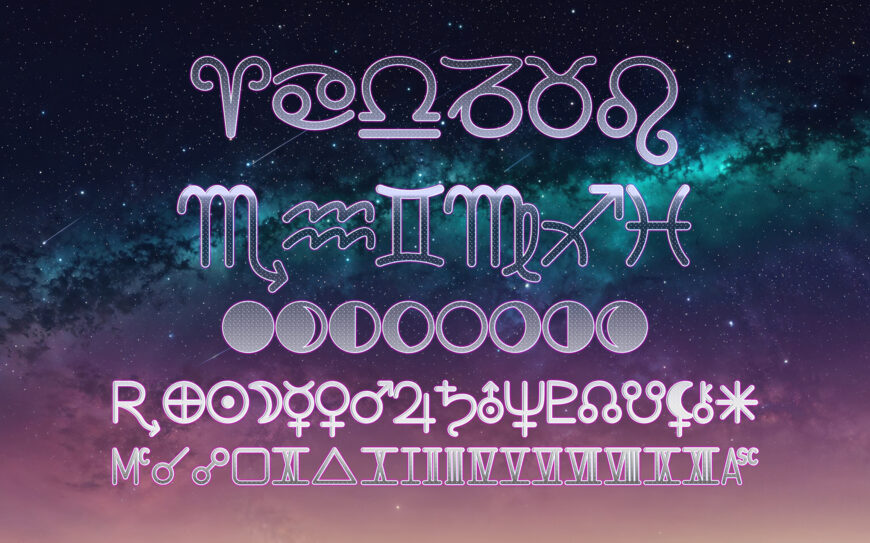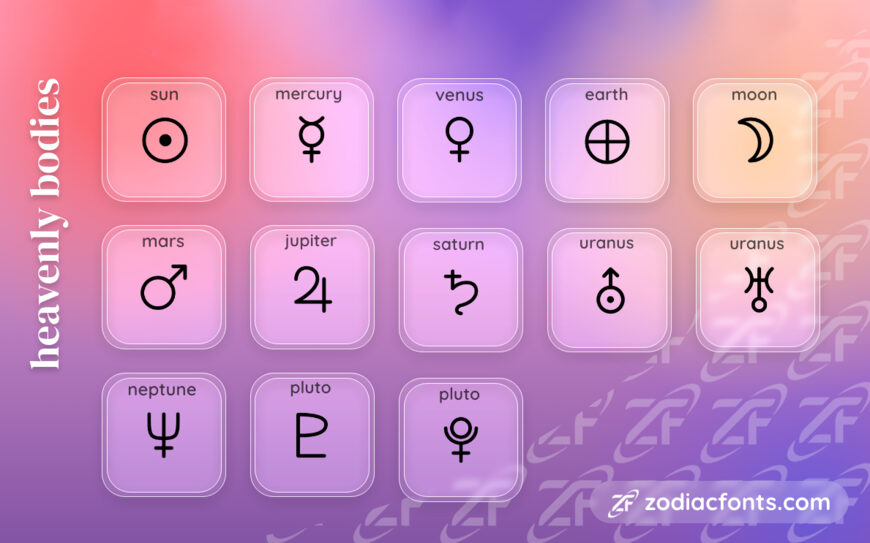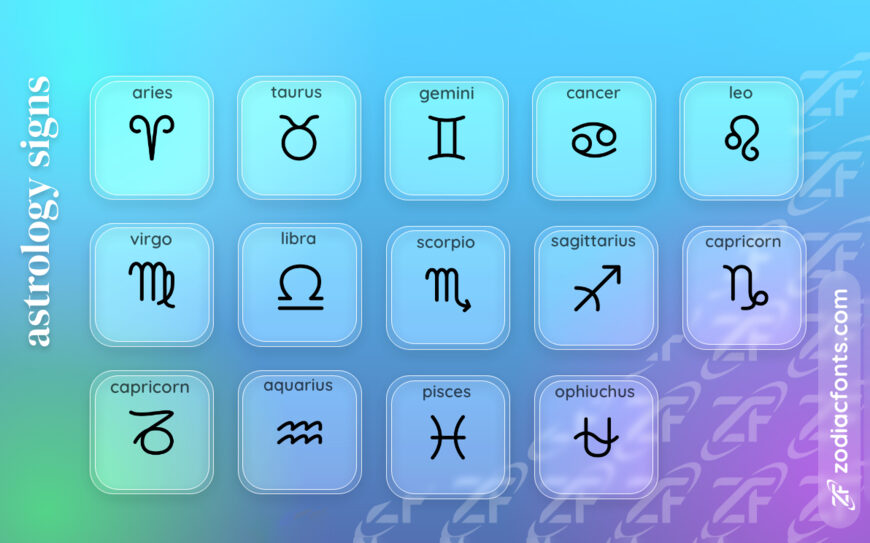
Zodiac Font
Zodiac Fonts is a comprehensive design resource specializing in astrology-themed typography. It offers two complete typeface families—a clean sans-serif (free) and a structured slab-serif (paid)—each available in light, regular, and bold weights.
Beyond standard text, the collection includes 101 professional-grade astrology symbols (55 free and 46 premium), covering zodiac signs, planets, houses, and aspects. These are available in font, SVG, and PNG formats, providing a versatile toolkit for creating astronomical charts, branding, and mystical design projects.